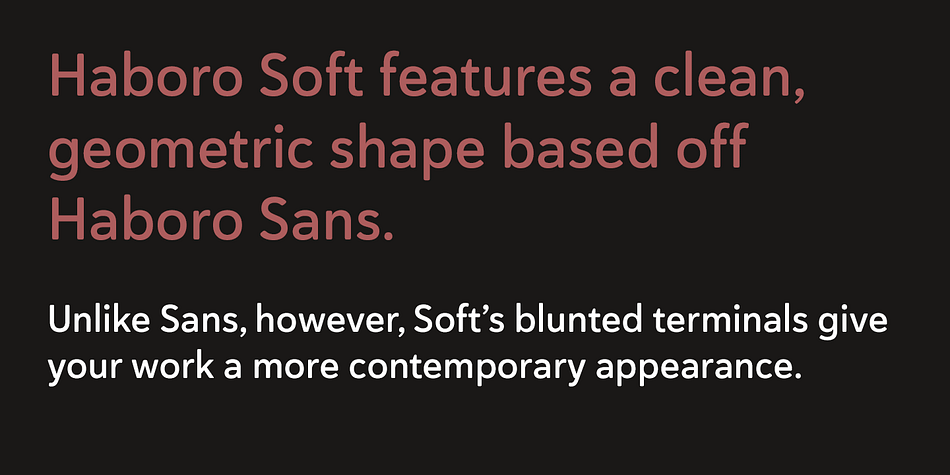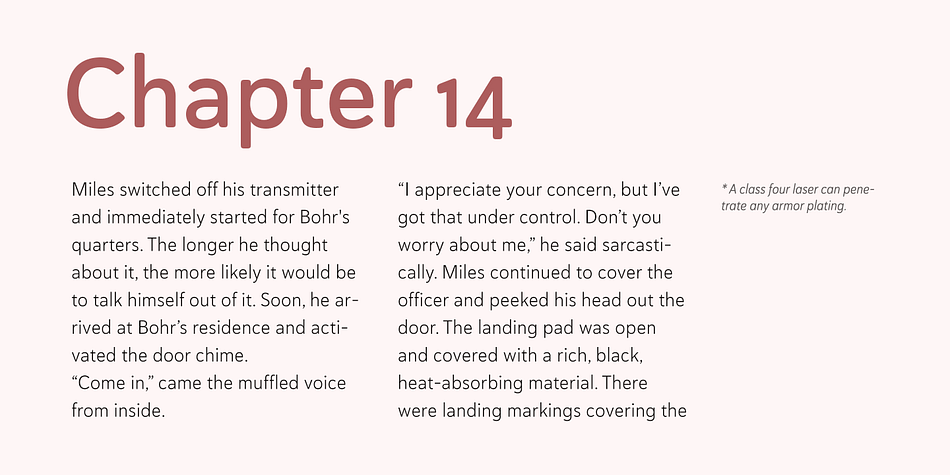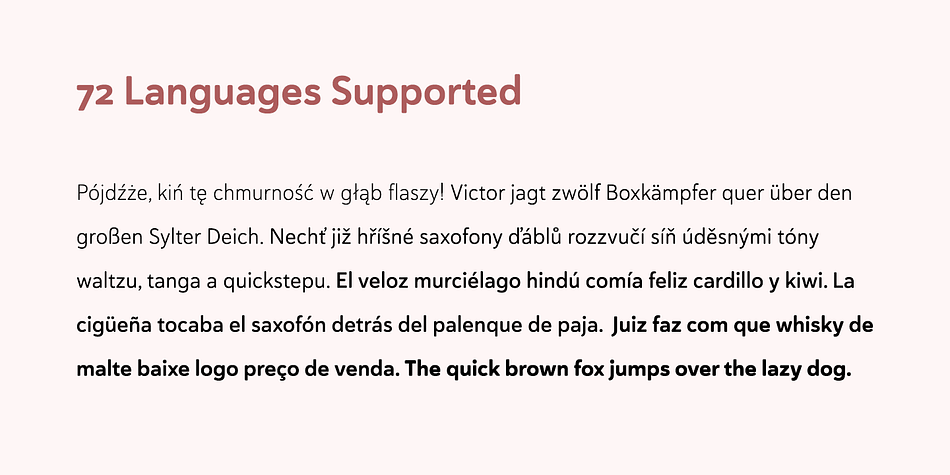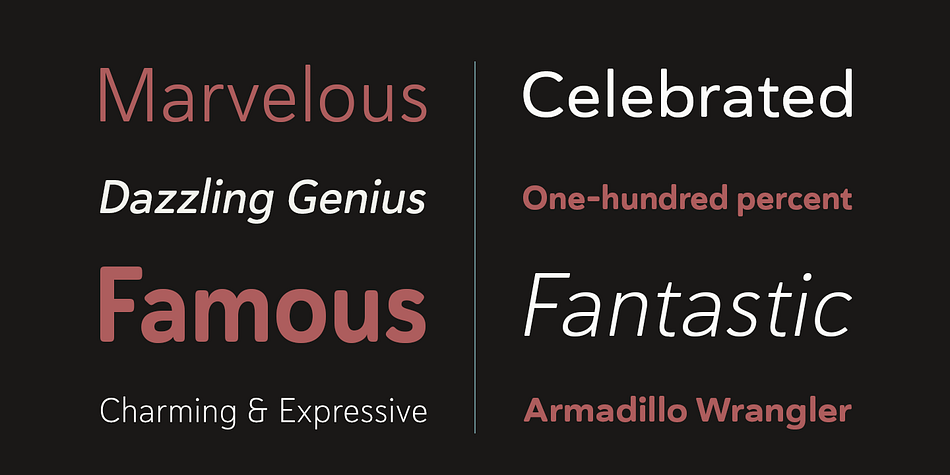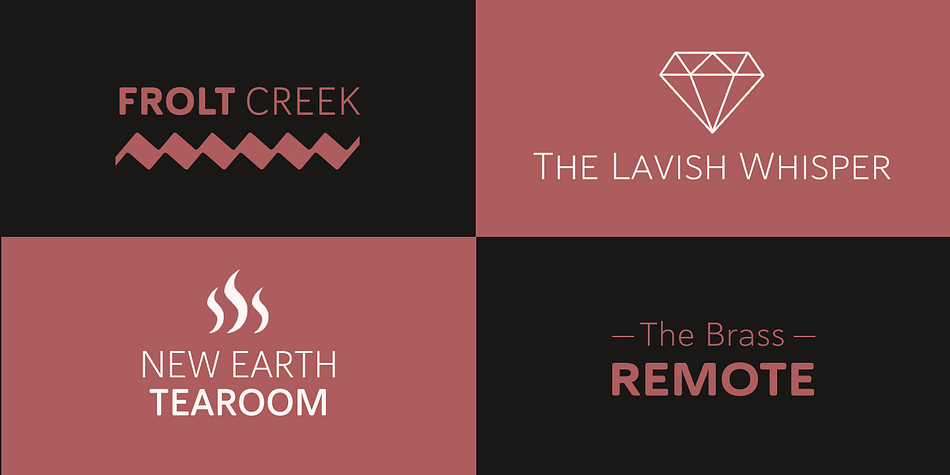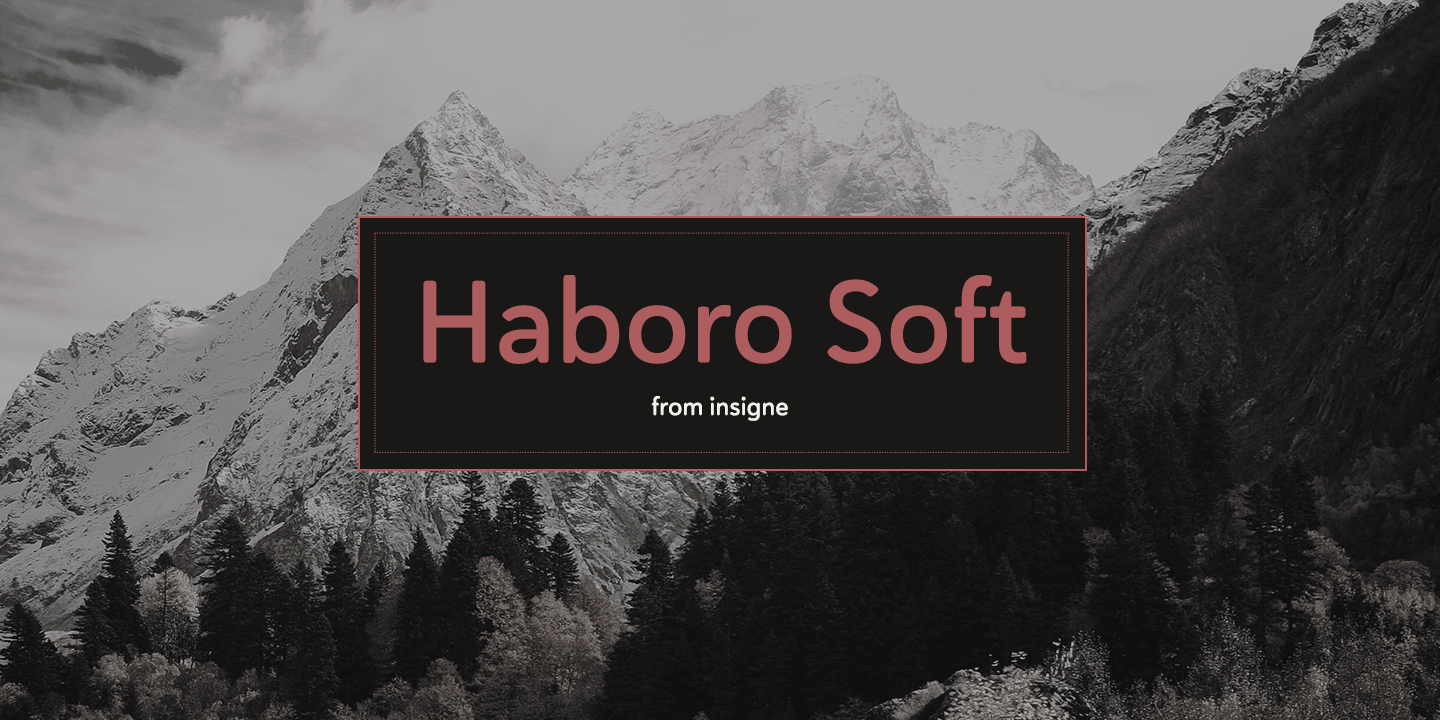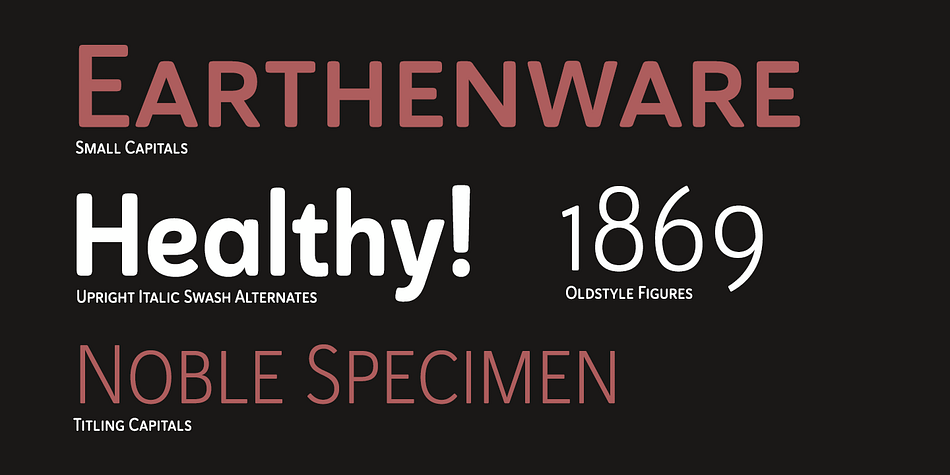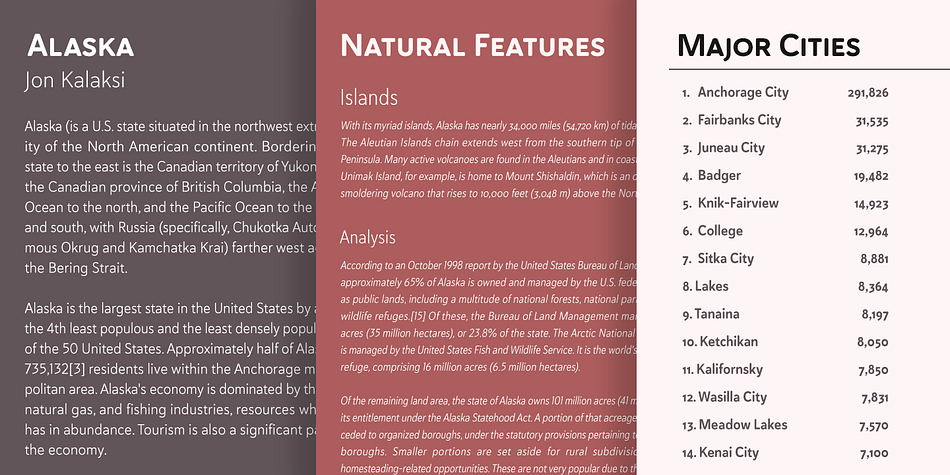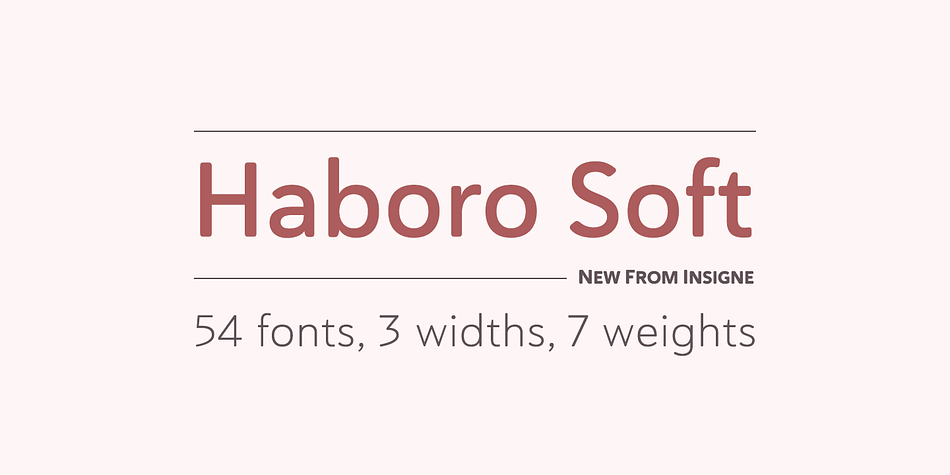
Haboro Soft is a sans serif font family. This typeface has forty-two styles and was published by Insigne Design.
Stop trekking through the thick, wintery font forest, and step lightly into the fresh life of the Haboro hyperfamily.
Though simple in nature, the Haboro hyperfamily provides you with a variety of options. Take, for instance, Haboro Soft, the latest member. Soft features a clean, geometric shape based off Haboro Sans. Unlike Sans, however, Soft’s blunted terminals give your work a more contemporary appearance. It’s a gentle touch for those times you prefer subtilty over pounding your message home.
Take Haboro Soft even farther with its OpenType features. The typeface contains specially shaped small caps and old-fashioned figures—just enough to give your work a unique touch. Of course, for more options, use the entire Haboro hyperfamily to expand your abilities.
Enjoy the comfort in knowing you’re choosing a font family equipped with tools for most anything: packaging, branding, web pages, iPhone apps and more. Its simplicity lends itself to achieve perfect results. And yes, your work will even thank you.